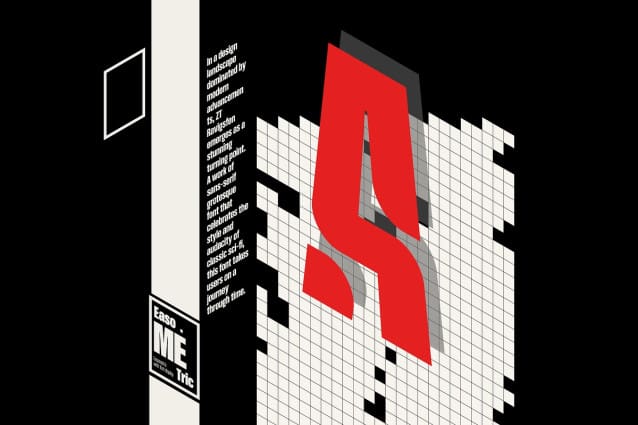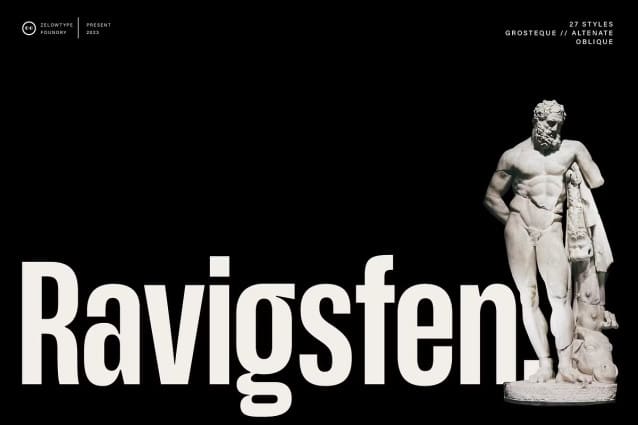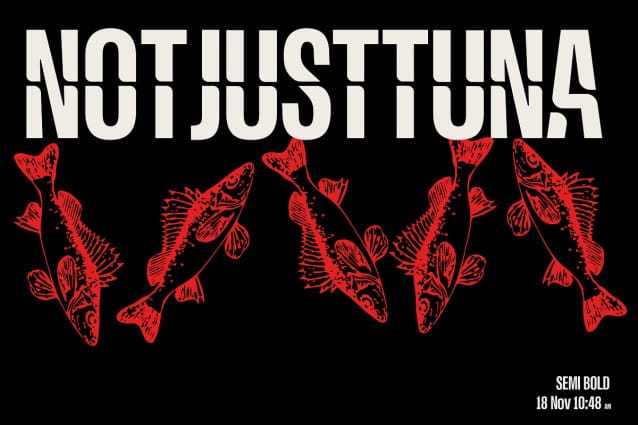
ZT Ravigsfen Font Family
ZT Ravigsfen Font Family emerges as a stunning turning point. A work of sans-serif grotesque font that celebrates the style and audacity of classic sci-fi, this font takes users on a journey through time.
ZT Ravigsfen Key Features:
9 Remarkable Weights
3 Styles (Grotesque, Oblique, & Alternate)
Captivating Alternative Style
Distinct Aura in Every Thickness
Rich with 525 Glyph